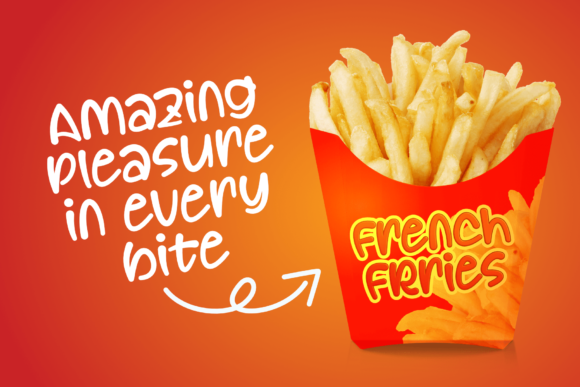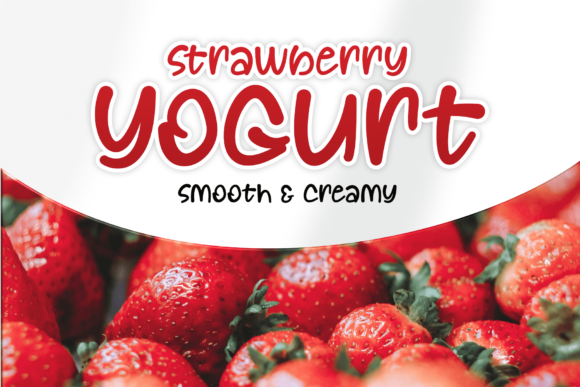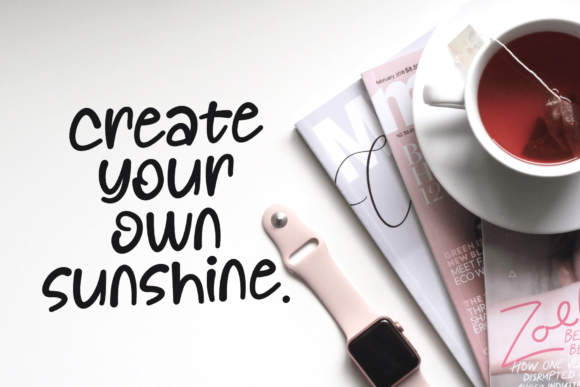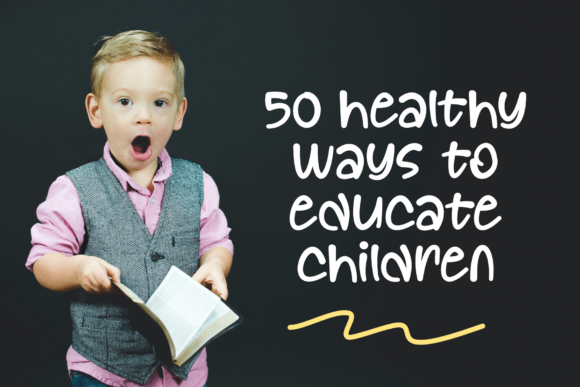
Introduction to Relaxnes Font
Have you ever had that moment when a spark of creativity strikes, and you can’t wait to bring your idea to life? You see it in your mind’s eye, a vibrant, whimsical design that’s just begging to be created. For designers like you, finding the right design resource can be the key to unlocking that creative potential. That’s where the enchanting Relaxnes Font comes in – a high-quality, display font that’s sure to add a touch of fun and quirkiness to any project.
With its transparent background and playful charm, Relaxnes Font is the perfect design companion for your next creative endeavor. Whether you’re working on a free download or a paid project, this font is sure to elevate your design to the next level. And the best part? It’s waiting to be downloaded and used in your next creative project, ready to bring your unique vision to life.
Key Features of Relaxnes Font
- High-quality design for creative projects, ideal as a design resource for professionals and hobbyists alike.
- Unique, modern design that can add a touch of elegance and sophistication to any creative project.
- Perfect for use in a variety of contexts, including logos, branding, typography, and more.
Honest Review: Relaxnes Font
I recently stumbled upon the Relaxnes Font, and I must say, it’s been a game-changer for my creative projects. This high-quality font is a valuable addition to any design resource collection.
What works well: ✨ The Relaxnes Font is incredibly versatile, making it perfect for a wide range of creative projects. I’ve used it for everything from logos to social media graphics, and it always looks great. The transparent background option is also a huge plus, allowing me to easily customize the font to fit my design needs.
What doesn’t: ⚠️ While the Relaxnes Font is generally high-quality, I did notice that it can be a bit difficult to read at very small font sizes. Additionally, the font family is relatively small, so it may not be suitable for large-scale projects.
Pros:
- High-quality, versatile font
- Difficult to read at very small font sizes
- Small font family
Relaxnes Font
The Relaxnes Font is ideal for a variety of design projects, including:
- Graphic design for social media and websites.
- Business card and brochure design.
- Presentations and documents.
Alex Brush is more elegant and refined compared to Relaxnes Font, which has a more casual feel. Alex Brush is ideal for high-end designs, while Relaxnes Font is better suited for casual, everyday projects.
Great Vibes is more modern and sleek compared to Relaxnes Font, which has a more vintage feel. Great Vibes is ideal for modern, high-end designs, while Relaxnes Font is better suited for vintage or retro-themed projects.